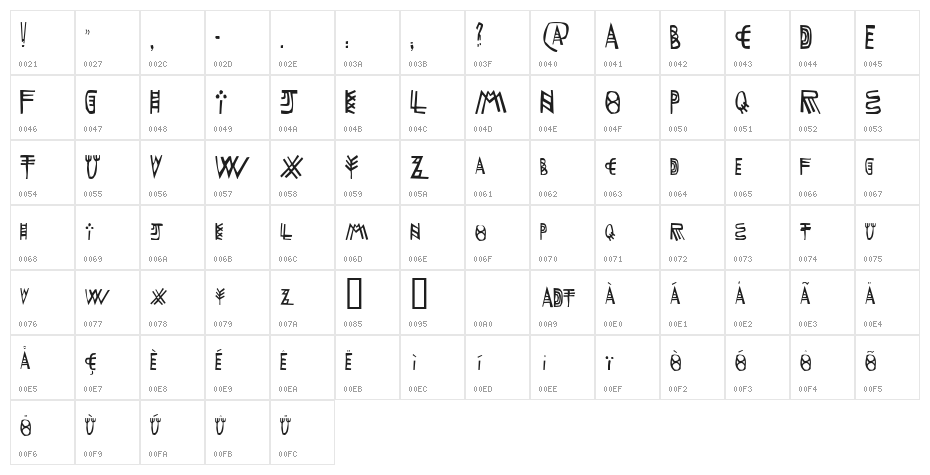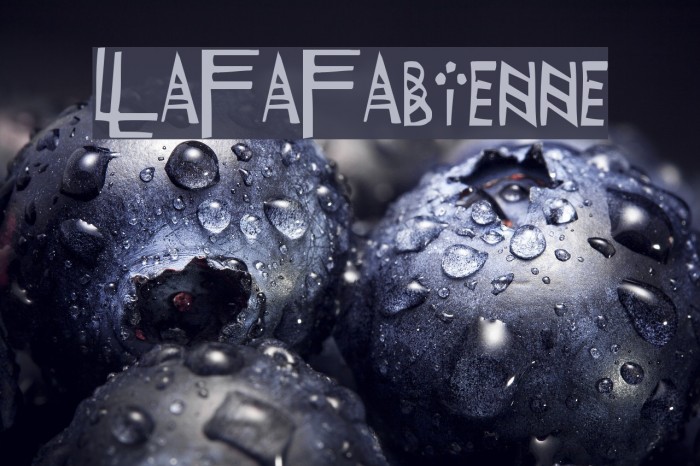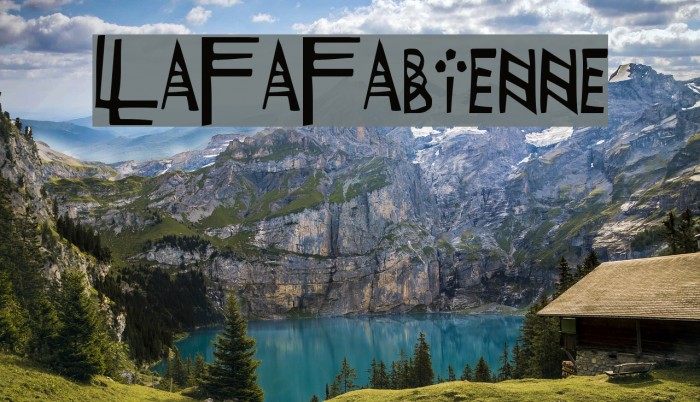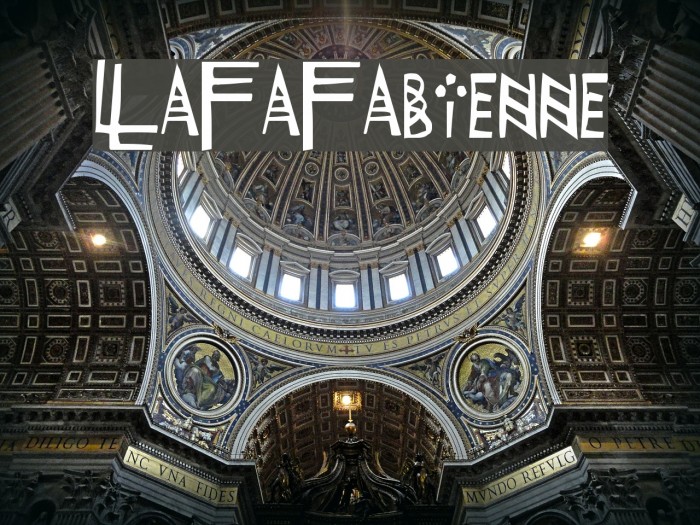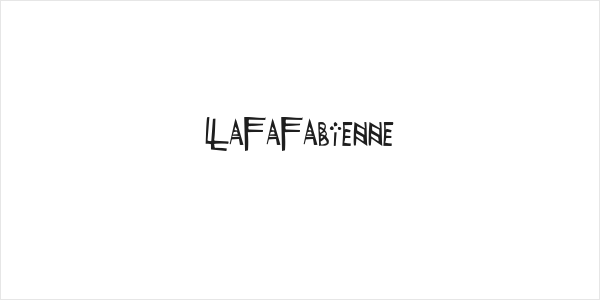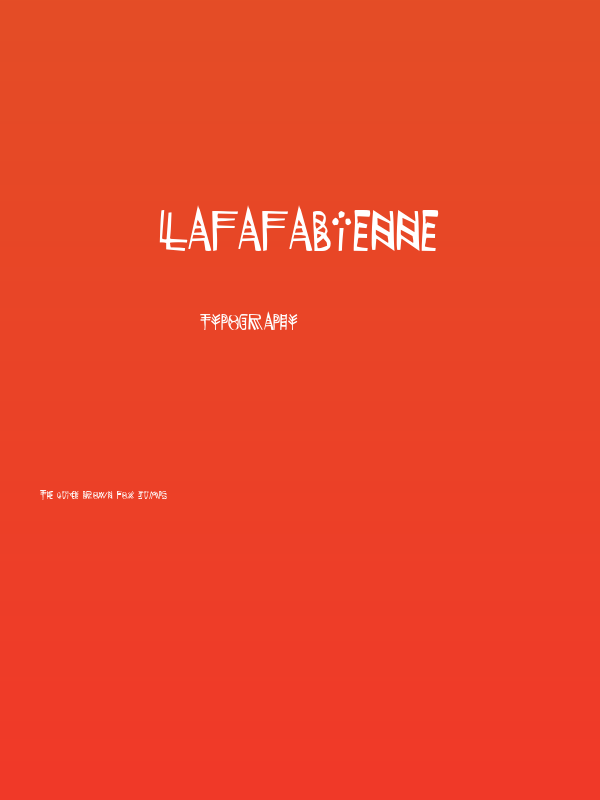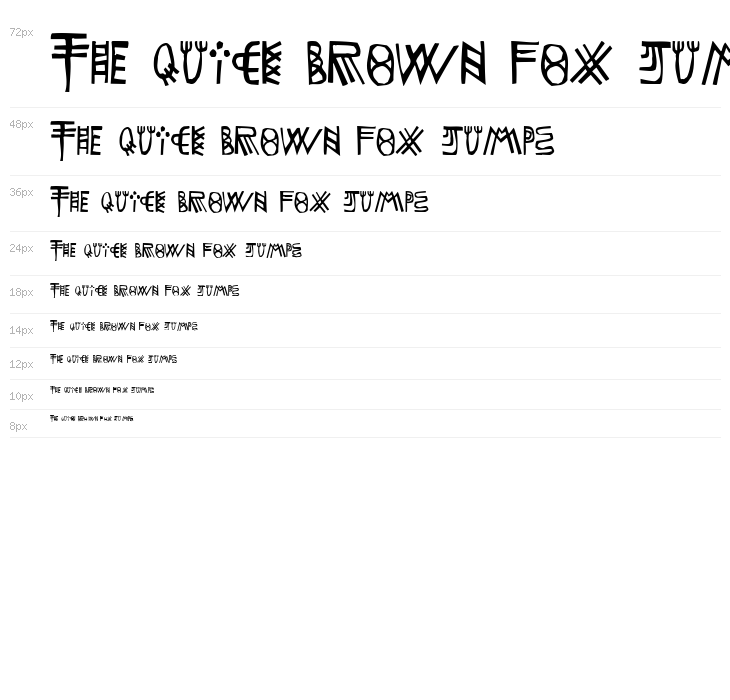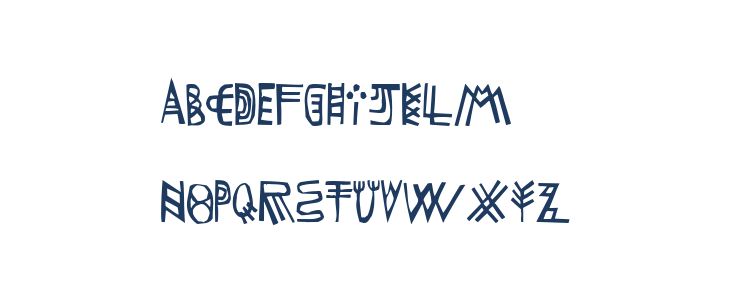
LaFaFabienne Font
LaFaFabienne Description
This font features a highly decorative and artistic style, characterized by its unique and intricate letterforms. Each character is designed with a playful and abstract approach, incorporating elements that resemble tribal or ancient script influences. The uppercase letters are bold and striking, with varying line thicknesses and creative embellishments that give the font a dynamic and eye-catching appearance. The lowercase letters maintain the same artistic flair, ensuring consistency throughout the typeface. The numerals and special characters are equally stylized, making this font suitable for projects that require a distinct and unconventional look.
| Proposed Projects | Ideal for artistic posters, album covers, branding for creative industries, and unique event invitations. |